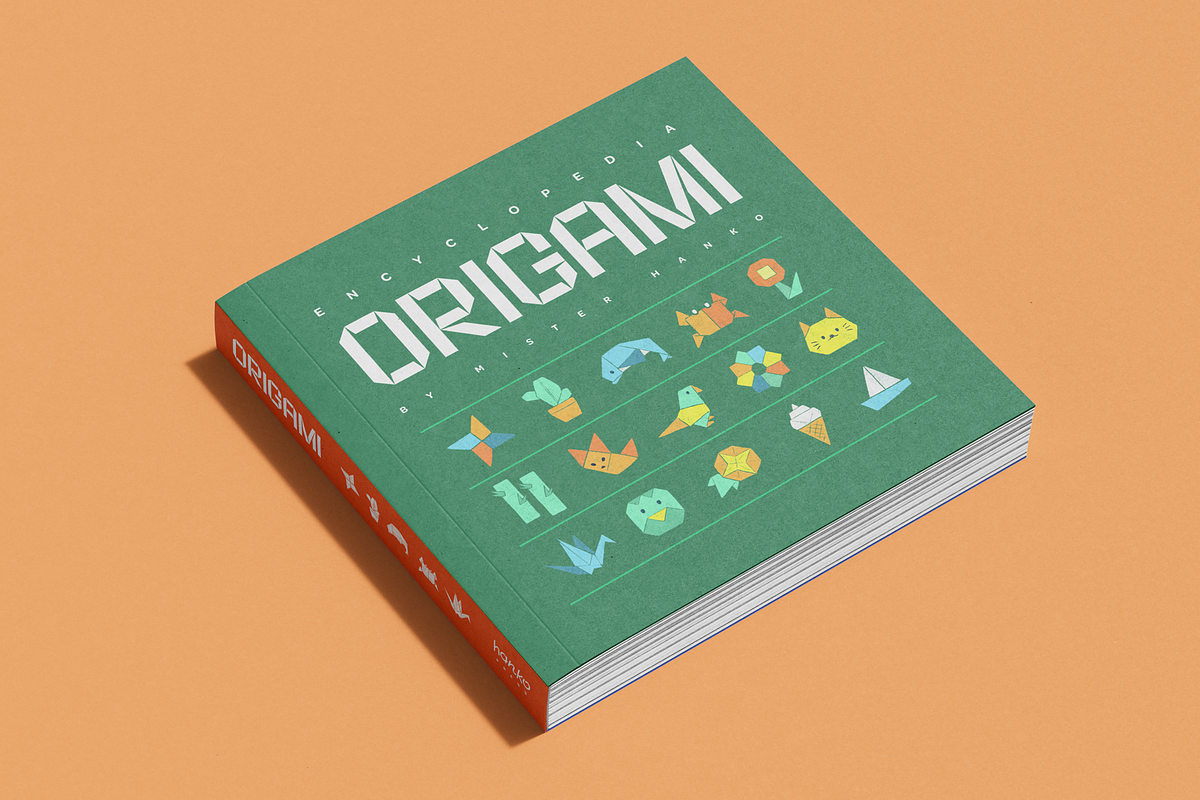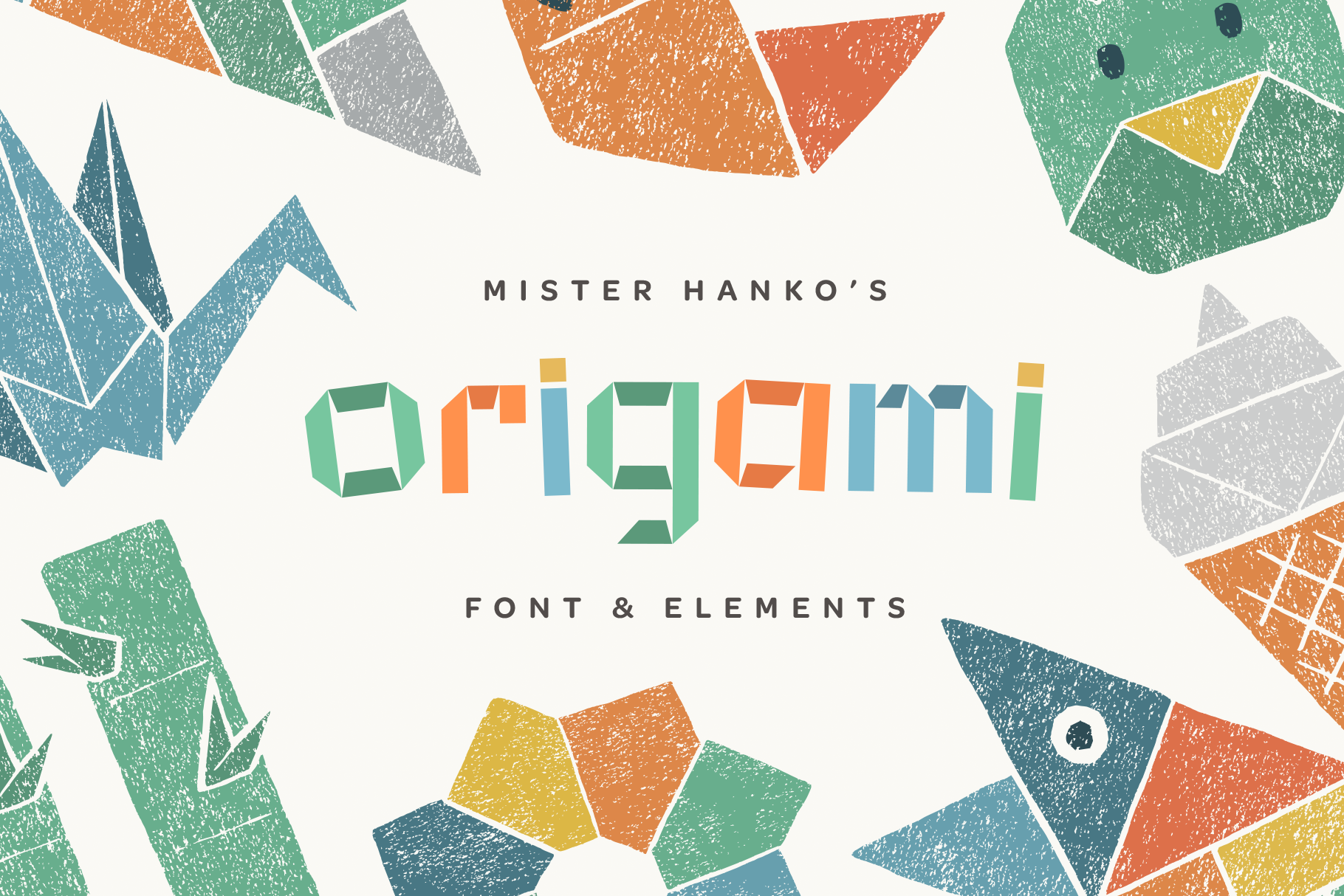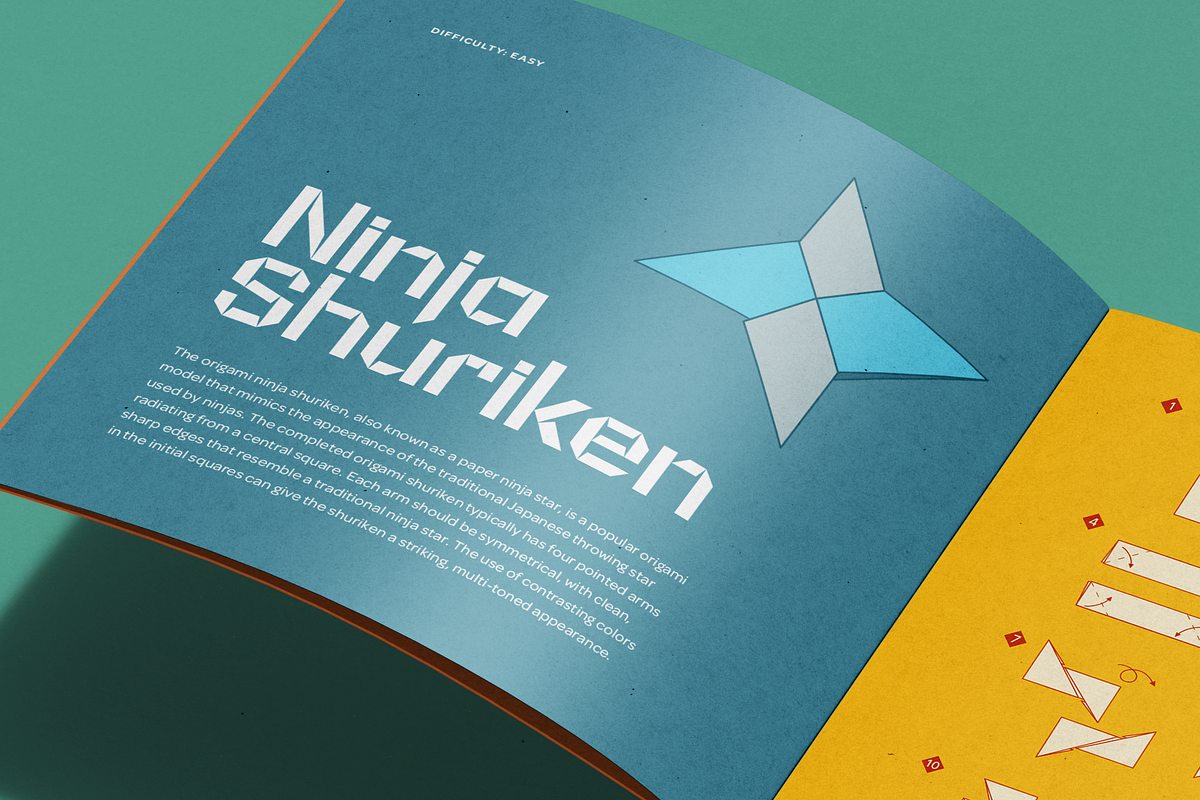
ORIGAMI Font + Elements
Classic origami forms and hanko stamps combine to create a charming typeface and collection of Japanese decorative illustrations.